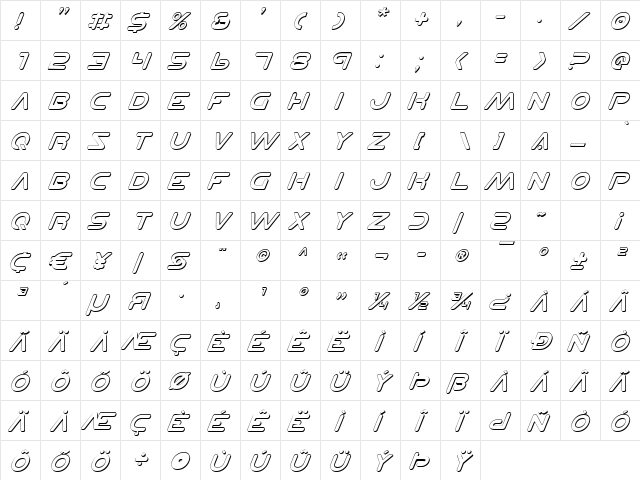
Planet N Shadow Italic Shadow Italic
Design Context for Planet N Shadow Italic Typeface
Planet N Shadow Italic brings ornamental detail and strong personality to headlines and identities, where visual impact matters more than quiet functionality. The dynamic lean of this cut emphasises speed and emphasis in any layout.
Font Pairing: Pair with a clean neutral sans-serif for body copy to let Planet N Shadow Italic's character lead without overwhelming the composition.
Pro Tip: Treat Planet N Shadow Italic as the centrepiece of your typographic hierarchy. One strong heading set in a decorative face can carry an entire layout.